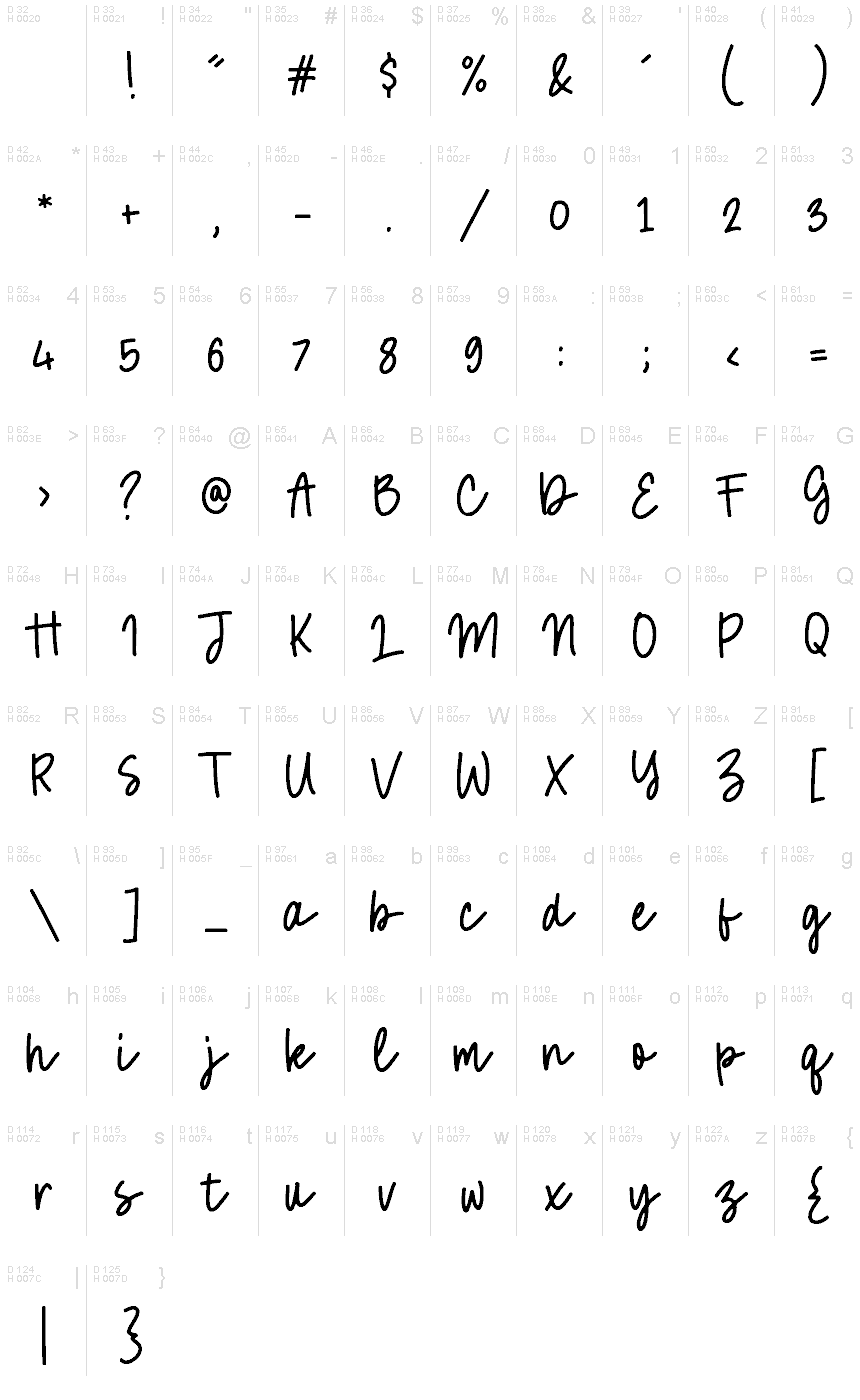
Simplefire
Simplefire font is a handwritten typeface created by Letterative Studio. With its natural flow and expressive style, this font embodies a casual yet refined look that lends an approachable atmosphere to any project. It features smooth curves and organic shapes, offering an authentic writing feel that is both modern and legible.
This free handwritten font suits designs where a personal touch matters: event invites, greeting cards, social media posts, store logos, web pages, product packaging design, stationery branding. Use it to create inspirational quotes about gratefulness or motivate your team in focused presentations on Keynote or Powerpoint.